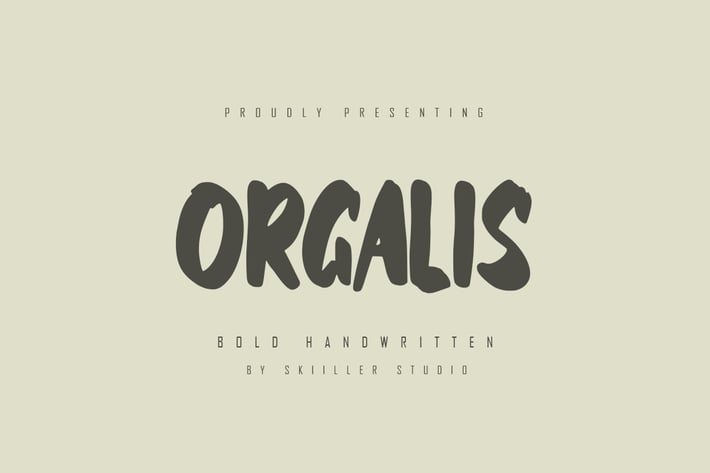
Orgalis - Bold Handwritten Font
Orgalis is a modern and brushed handwritten font, crafted to give your headlines and logotype projects a stylish touch. This font reads as strong, confident, and dynamic and can add tons of urban character to your designs.